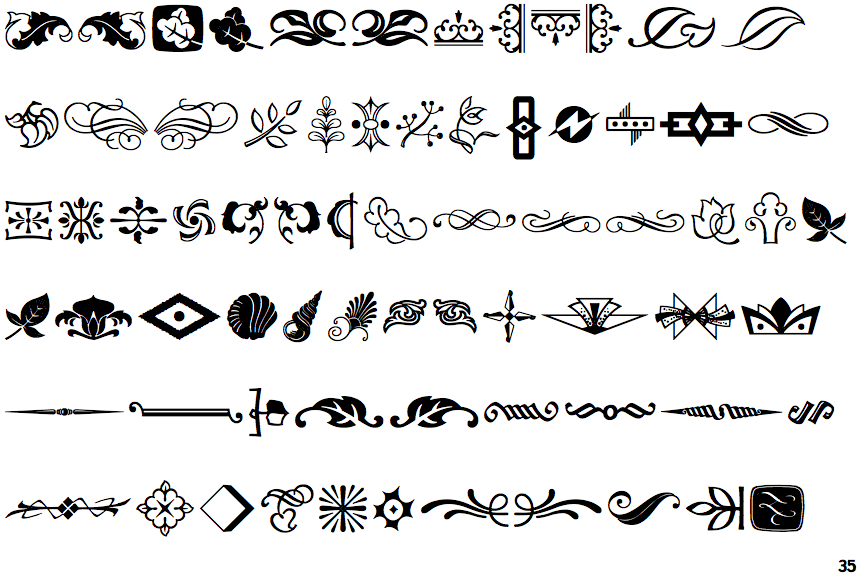
Famous Fonts With Embellishments 2022. Font type embellishments one let plain:1.0 font download free at fontsov.com, the largest collection of cool fonts for windows 7 and mac os in truetype (.ttf) and opentype (.otf). Sans serif bold font with no vertical bar in the capital letter e;
20+ best fonts with swashes & tails rautila font raya vintage hustler brush sophia script carlinet handwritten font mailton typeface devilion rough oston handwriting. Type embellishments one let plain:10 font download free in truetype and opentype format and download 768 similar fonts. Type embellishments font family was designed by michael gills, colin brignall and.
There is no point trying to find a. Type embellishments one let plain:10 font download free in truetype and opentype format and download 768 similar fonts. 20+ best fonts with swashes & tails rautila font raya vintage hustler brush sophia script carlinet handwritten font mailton typeface devilion rough oston handwriting.
Decorative Typography Is A Large Category That Includes Many Style Variations.
Font type embellishments one let plain:1.0 font download free at fontsov.com, the largest collection of cool fonts for windows 7 and mac os in truetype (.ttf) and opentype (.otf). Decorative fonts have an appearance with embellishments or ornaments. If you’re a video gamer, or if you have one in the.